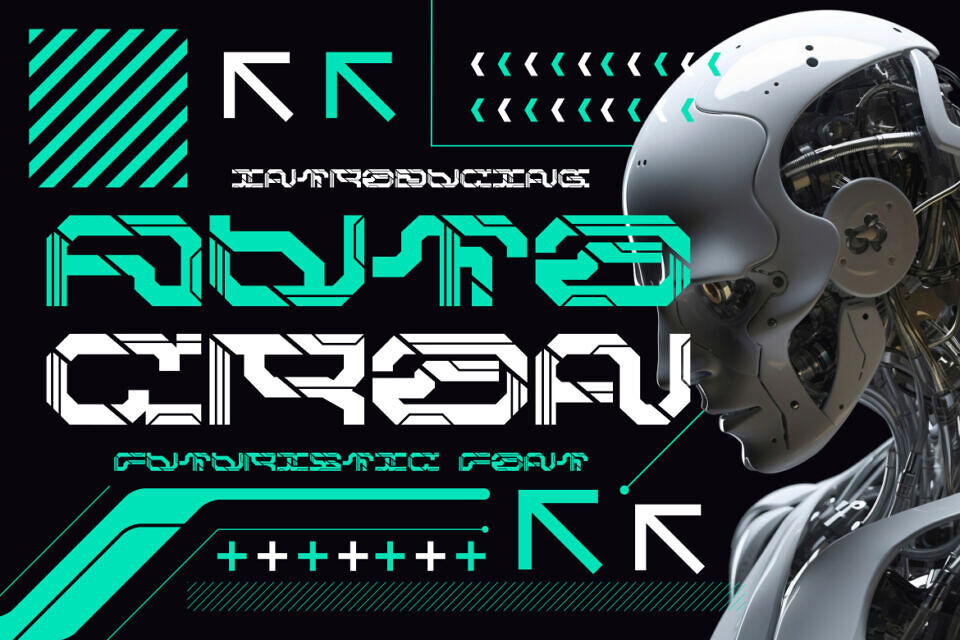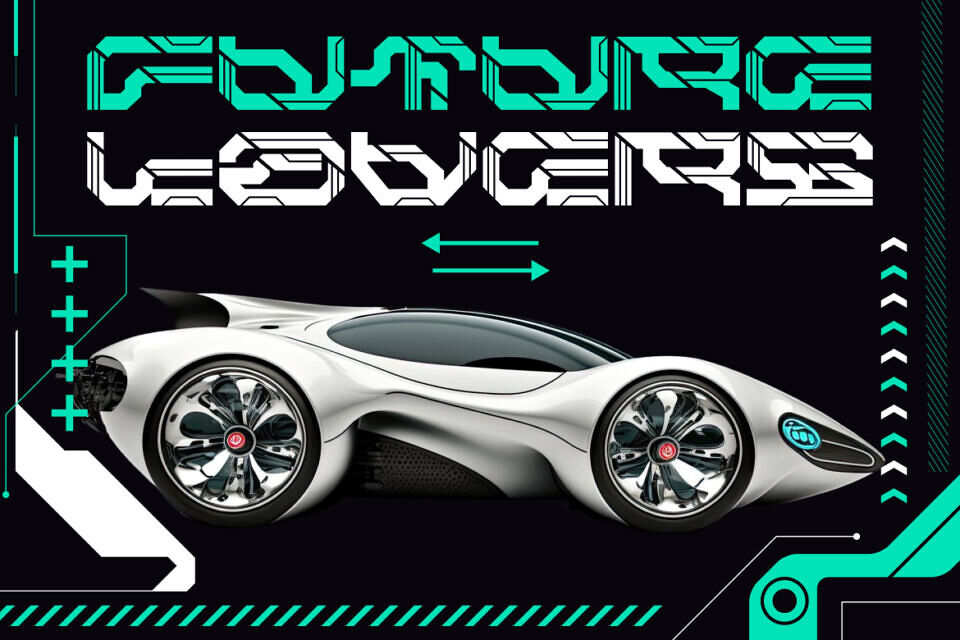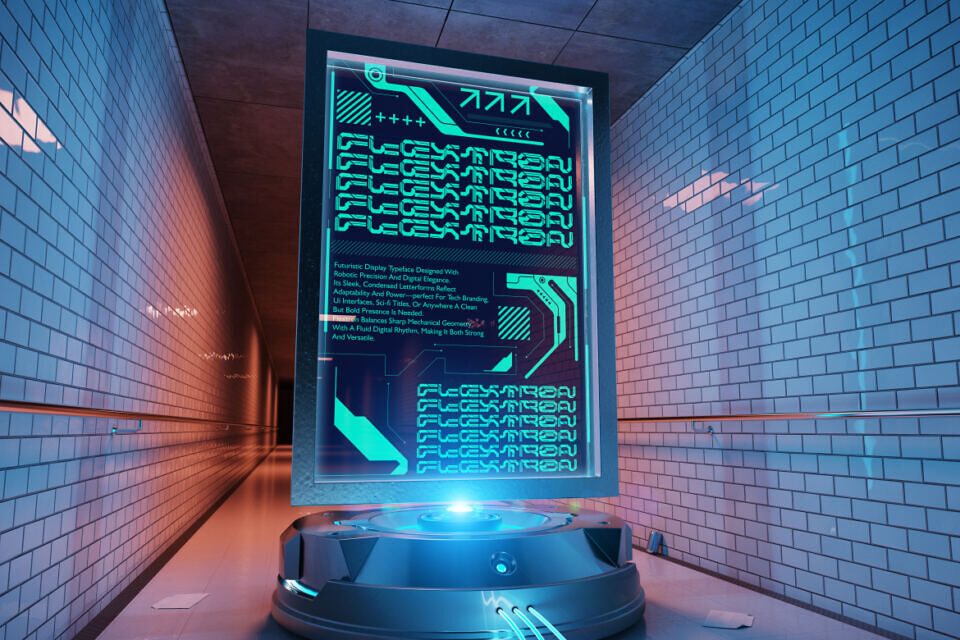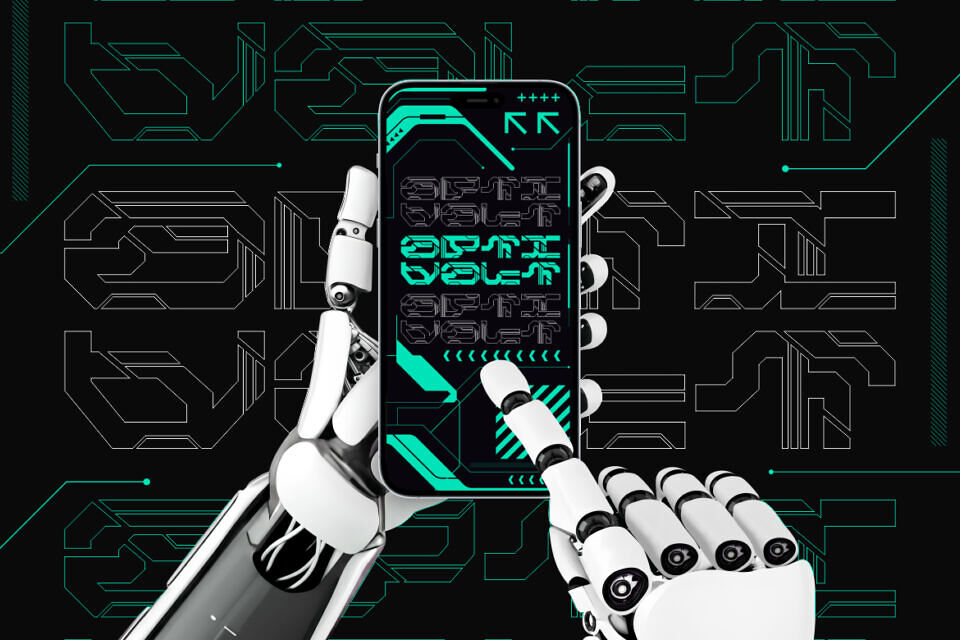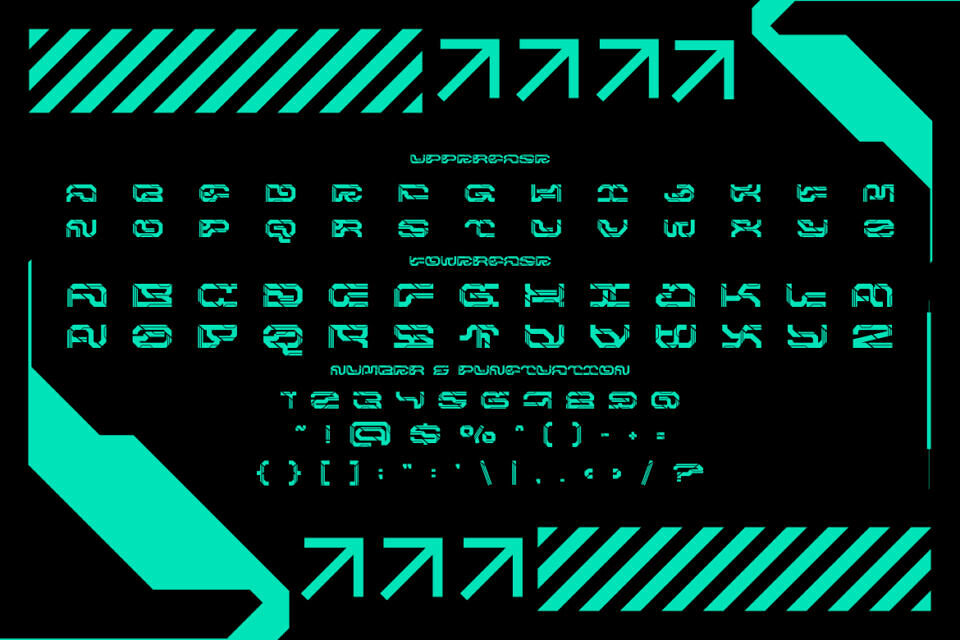
Autocron Font
Autocron Futuristic is a bold display typeface designed with a mechanical edge and digital rhythm. The letterforms are built from sharp geometric cuts, angled lines, and layered strokes, giving each character a mecha-inspired presence.
Its condensed style and segmented details reflect the essence of robotics, cyberpunk design, and advanced technology. The alternating strokes and circuit-like motifs enhance its futuristic appeal, making it stand out in high-tech visual projects. Autocron works seamlessly in bold layouts, from metallic posters and sci-fi film titles to experimental branding that demands a unique digital touch.